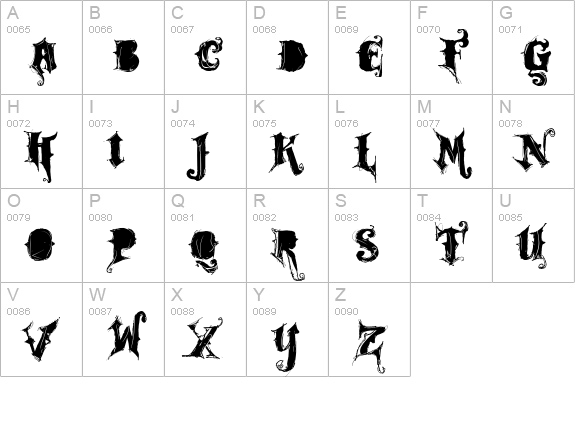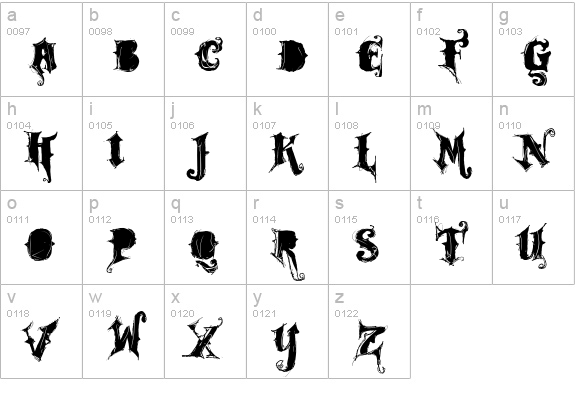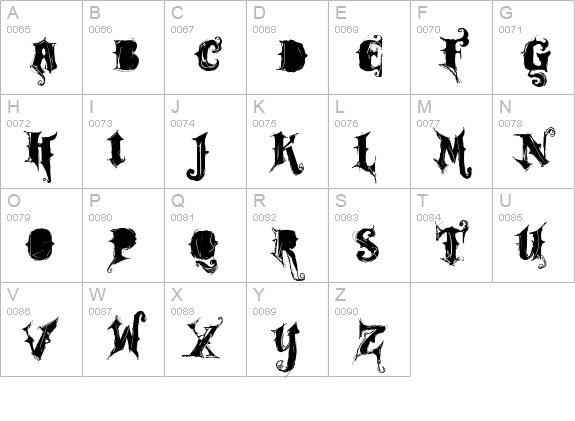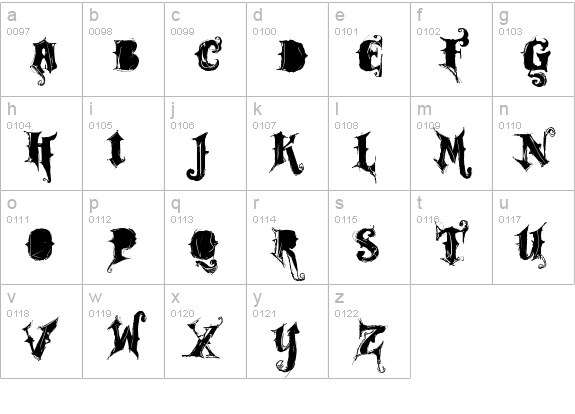
VTKS ROCK GARAGE BAND Font Details
VTKS ROCK GARAGE BAND font is a bold and edgy typeface that captures the rebellious spirit of rock music. With its rugged and distressed letterforms, this font exudes raw energy and attitude, making it the perfect choice for any project that needs a touch of rock and roll flair. Featuring a mix of uppercase and lowercase characters, VTKS ROCK GARAGE BAND font offers a versatile and dynamic aesthetic that can be used for various design purposes. Whether you're creating posters, album covers, logos, or even just adding a rock-inspired touch to your personal artwork, this font is sure to make a statement. One of the best things about VTKS ROCK GARAGE BAND font is that it is completely free. That's right, you can download this font at no cost from FontsMarket.com. This means you can enjoy all the boldness and character of this typeface without having to spend a dime. So why wait? Give your designs a dose of rock and roll with VTKS ROCK GARAGE BAND font. Download it for free today at FontsMarket.com and let your creativity rock the world.